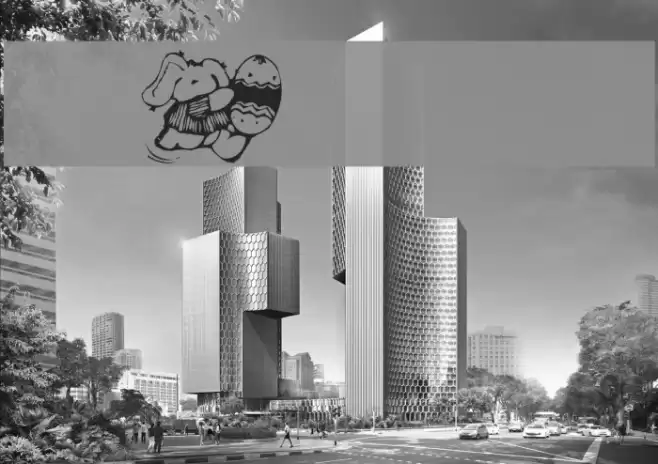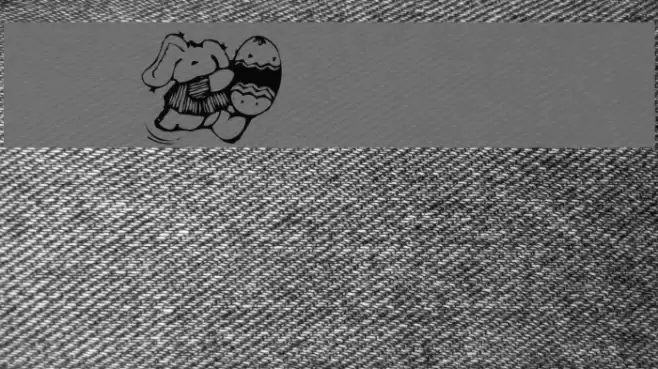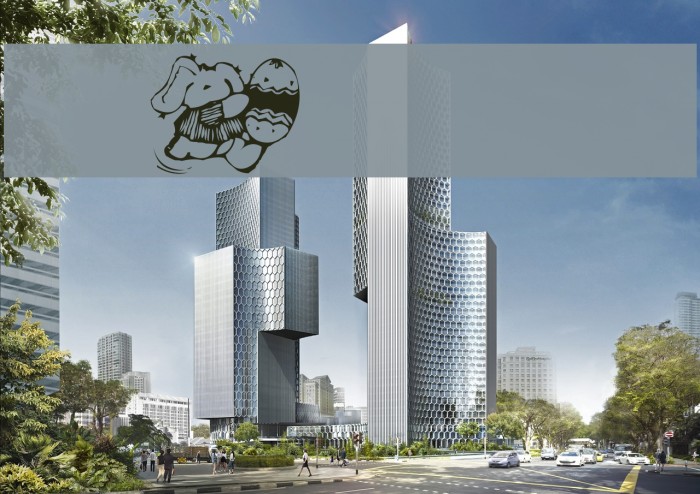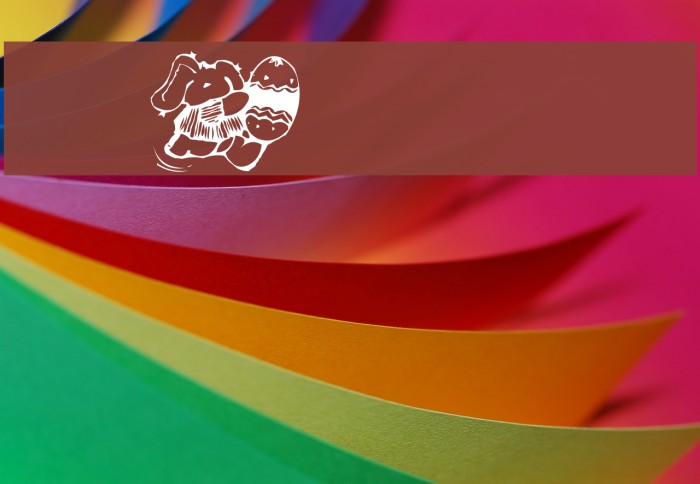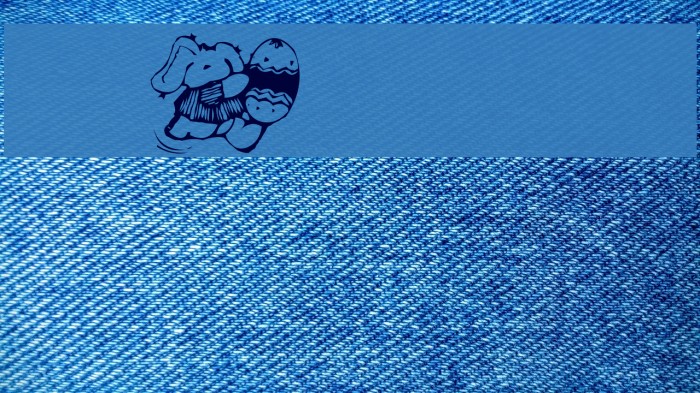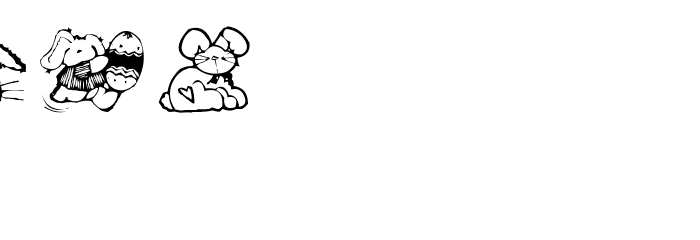
AEZ bunnies Font
AEZ bunnies Description
This whimsical and playful design features adorable bunny illustrations, each with unique characteristics and expressions. The bunnies are depicted in various poses, some holding Easter eggs, while others are simply lounging. The style is hand-drawn with a charming, cartoonish quality that adds a delightful touch. The line work is clean and minimal, emphasizing the cute and friendly nature of the characters. This design is perfect for adding a touch of fun and creativity to any project, especially those aimed at children or themed around Easter and springtime.
A playful, hand-drawn design featuring cute bunny illustrations from Uncategorized fonts.
- Proposed Projects: Ideal for children's book illustrations, Easter-themed decorations, greeting cards, and playful branding materials.
- Overall Style: Playful, Whimsical
- Use Case: Decorative elements, Illustrations